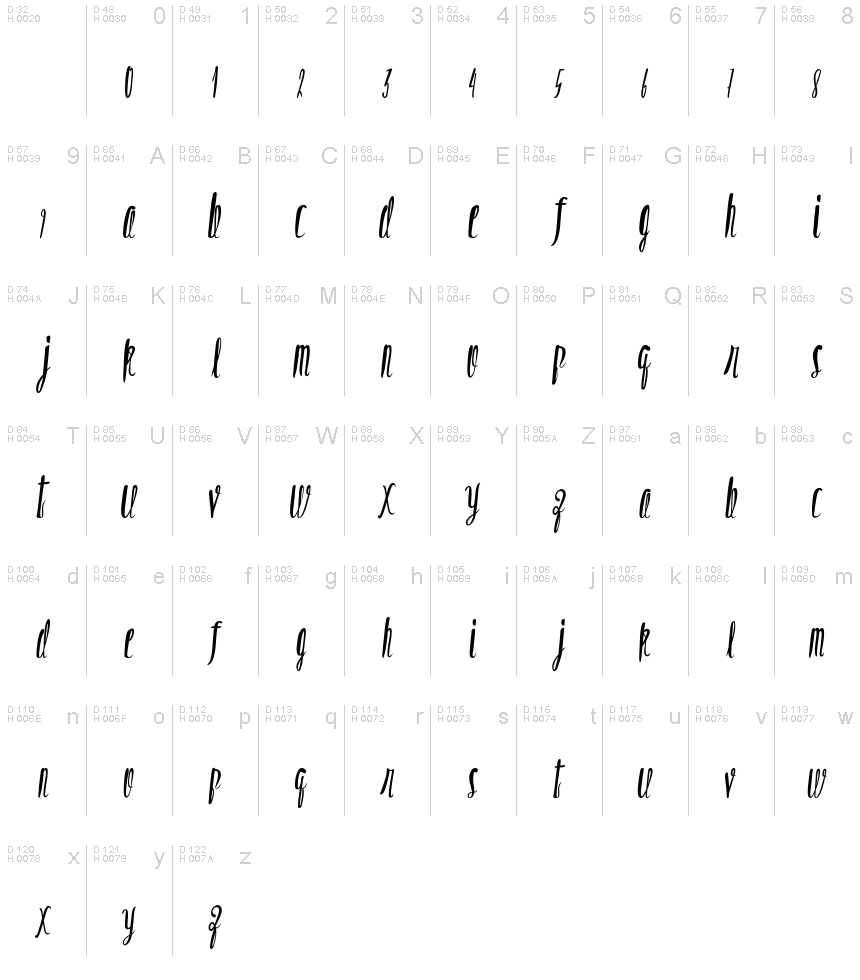
OpiatedValues
"Opiated Values" is a captivating handwritten font designed by Max Infeld Xerographer Fonts. Its condensed width and flowing, organic strokes evoke a sense of fluidity and expressiveness, making it a striking choice for a wide range of design applications.
The font's unique aesthetic exudes a balance of elegance and raw energy, seamlessly blending modern and vintage influences. Its versatility shines through, lending itself equally well to editorial layouts, branding materials, and even creative writing projects. Opiated Values' distinctive character and versatility make it a compelling addition to any designer's toolkit.